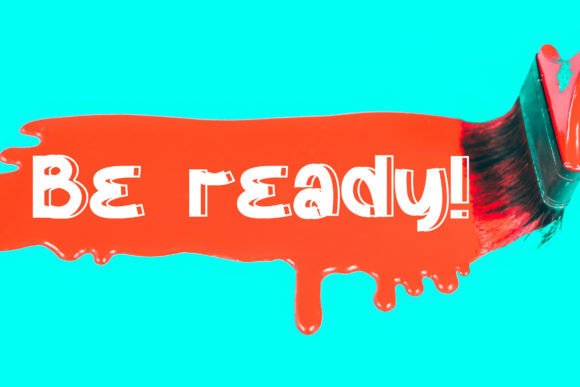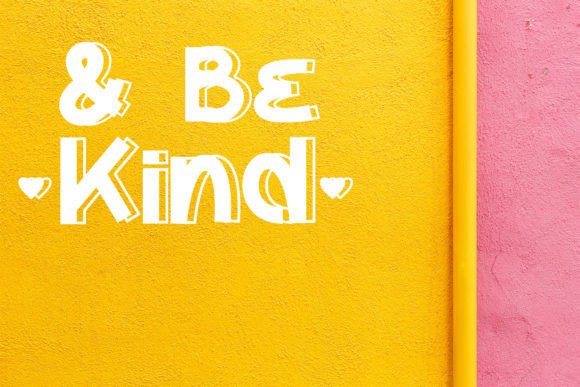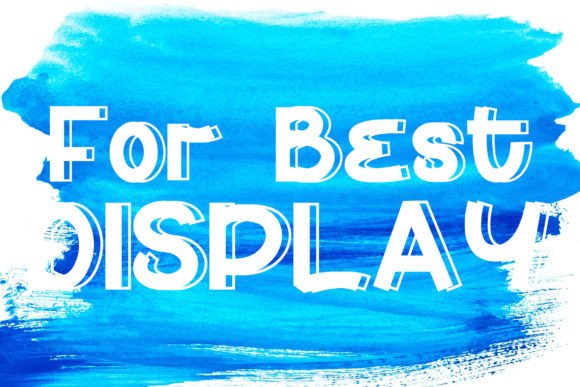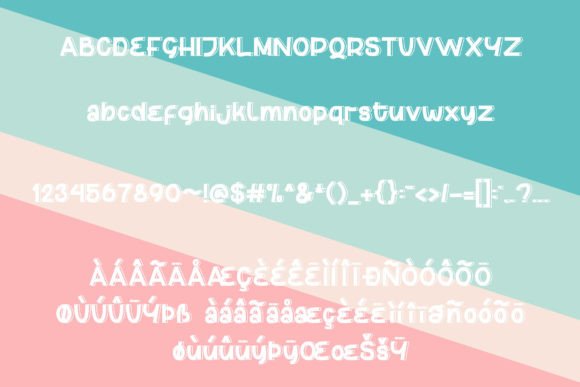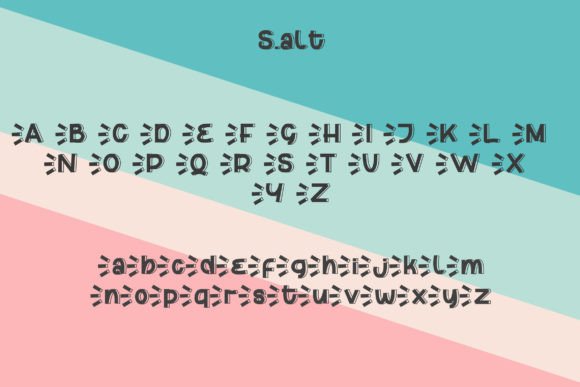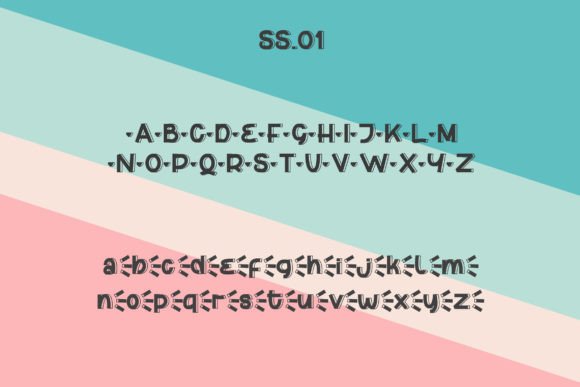
Geno Gone Font: Add a Playful Touch to Your Creative Projects
Are you tired of using the same old fonts for your social media posts, crafts, and designs? Look no further than Geno Gone Font, a fun and playful display font that’s perfect for adding a touch of personality to your creative projects. In this article, we’ll take a closer look at Geno Gone Font, its features, and how you can use it to make your designs stand out.
What is Geno Gone Font?
Geno Gone Font is a display font designed to add a playful and interesting touch to your designs. Its unique and quirky style makes it perfect for a variety of creative projects, from social media posts to clothing designs, merchandise, and more. Whether you’re a designer, crafter, or DIY enthusiast, Geno Gone Font is a great addition to your font collection.
Features of Geno Gone Font
Geno Gone Font has several features that make it a great choice for your creative projects. Some of its key features include:
- Playful and interesting style: Geno Gone Font has a unique and playful style that’s sure to grab attention.
- Versatile: This font is suitable for a variety of creative projects, from social media posts to clothing designs and merchandise.
- Easy to read: Despite its playful style, Geno Gone Font is easy to read, making it perfect for designs that require a clear and concise message.
Uses of Geno Gone Font
Geno Gone Font is a versatile font that can be used for a variety of creative projects. Here are some ideas to get you started:
- Social media posts: Add a playful touch to your social media posts and make them stand out from the crowd.
- Crafts: Use Geno Gone Font to add a personal touch to your crafts, such as handmade cards, gift tags, and more.
- Clothing designs: Create unique and eye-catching clothing designs with Geno Gone Font.
- Merchandise design: Use Geno Gone Font to create fun and playful designs for merchandise, such as t-shirts, mugs, and more.
Why Choose Geno Gone Font?
There are many fonts available, but Geno Gone Font stands out from the rest. Here are some reasons why you should choose Geno Gone Font for your creative projects:
- Unique style: Geno Gone Font has a unique and playful style that’s sure to grab attention.
- Versatile: Geno Gone Font is suitable for a variety of creative projects, making it a great addition to your font collection.
Geno Gone Font is a fun and playful display font that’s perfect for adding a touch of personality to your creative projects. Its unique and quirky style makes it suitable for a variety of designs, from social media posts to clothing designs and merchandise. With its ease of use and versatility, Geno Gone Font is a great addition to any font collection. So why wait? Add Geno Gone Font to your creative projects today and make them stand out!